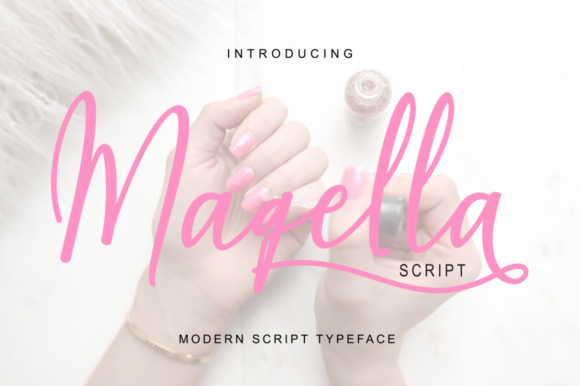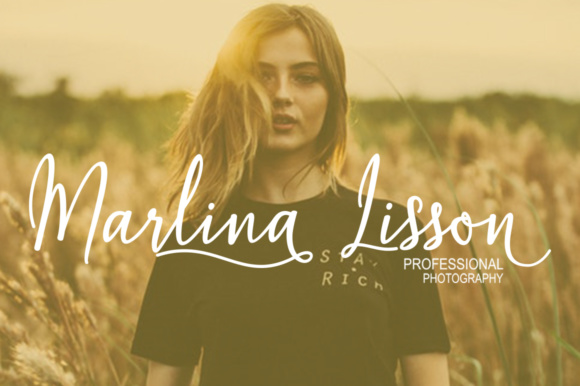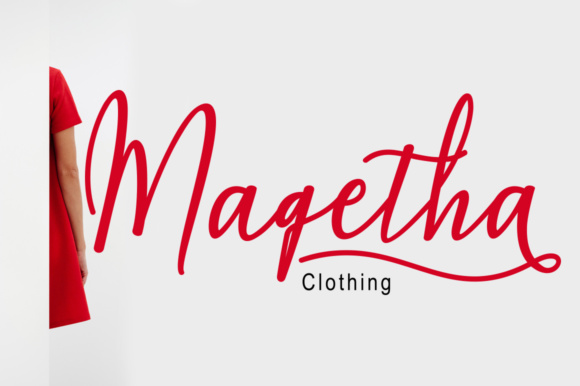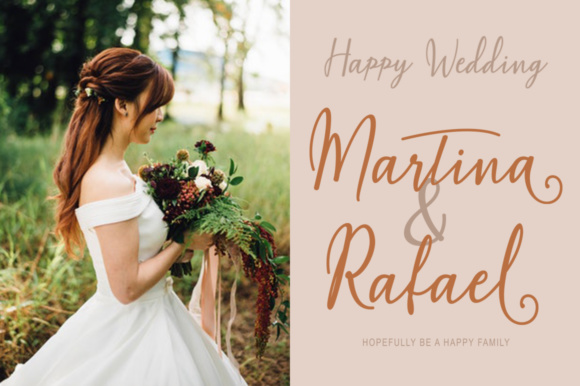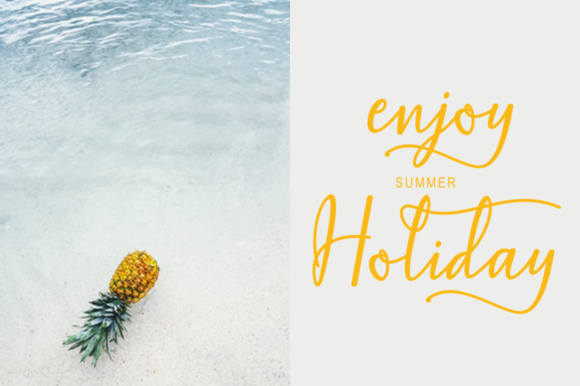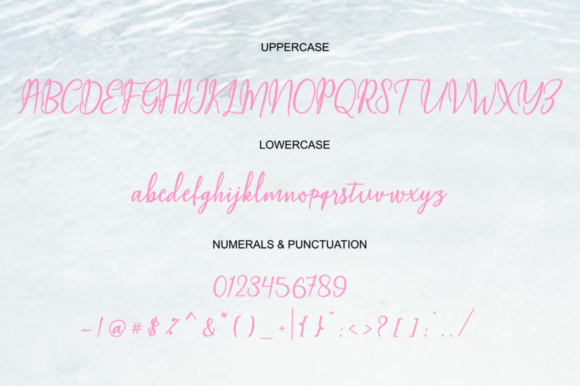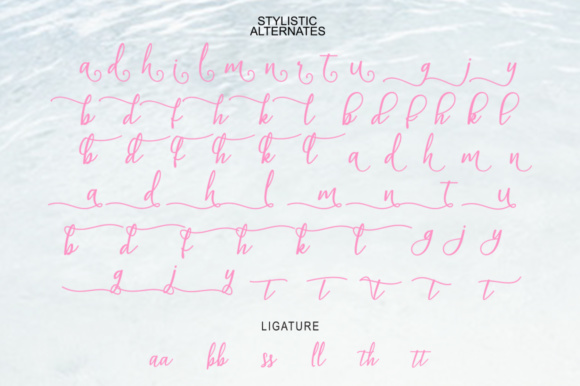
Maqella Font
About Maqella Font
Maqella is a gorgeous calligraphy font, perfect for use in a wide range of projects. This script is a great way to add a handcrafted and irregular (but appealing) look to your print or digital works.